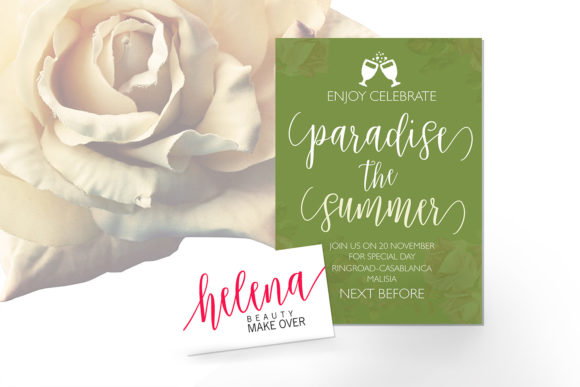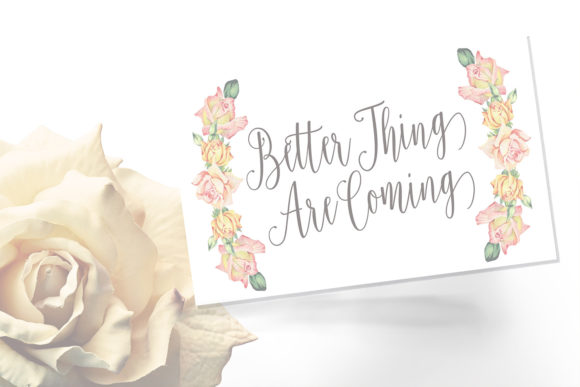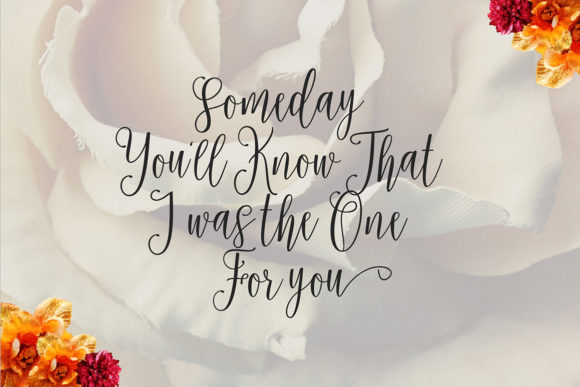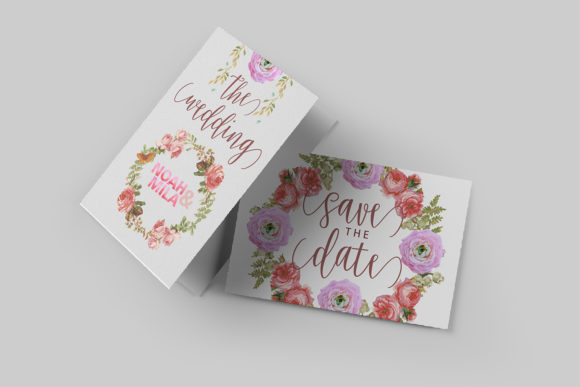
Introducing Charlotte Script Font: Elevate Your Designs with Elegance and Sophistication
In the world of typography, a new star has emerged: Charlotte Script Font. This stunning script font is making waves with its hand-lettered characters and exquisite blend of classic and modern typography. Whether you’re a designer, crafter, or DIY enthusiast, Charlotte is poised to become your go-to font for a wide range of creative projects.
What Makes Charlotte Script Font So Special?
Charlotte Script Font is more than just a pretty face. Its unique combination of classic and modern elements makes it incredibly versatile, suitable for a variety of applications. Here are just a few ways you can use Charlotte to elevate your designs:
- Logos and Branding: Create a lasting impression with a custom logo that exudes elegance and sophistication.
- Wedding Invitations: Make your special day even more memorable with beautifully designed invitations that set the tone for your wedding celebration.
- Signage and Posters: Grab attention and convey your message in style with eye-catching signage and posters.
- T-Shirts and Apparel: Add a touch of personality to your clothing and accessories with custom designs that showcase your unique style.
- Letterheads and Stationery: Elevate your business correspondence with professional-looking letterheads and stationery.
- Access a wide range of glyphs: From elegant swashes to intricate flourishes, Charlotte’s PUA encoding makes it easy to add a touch of sophistication to your designs.
- Customize your text: With a vast array of glyphs and swashes at your disposal, you can tailor your text to suit your specific design needs.
Why Designers and Crafters Love Charlotte Script Font
So, why are designers and crafters raving about Charlotte Script Font? Here are just a few reasons:
- Unique and Versatile: Charlotte’s blend of classic and modern typography makes it incredibly versatile, suitable for a wide range of design applications.
- Elegant and Sophisticated: With its hand-lettered characters and beautiful swashes, Charlotte adds a touch of elegance and sophistication to any design.
Get Creative with Charlotte Script Font
Ready to take your designs to the next level with Charlotte Script Font? Here are a few tips to get you started:
- Experiment with different glyphs and swashes: Don’t be afraid to try out different combinations to find the perfect look for your design.
- Play with font sizes and colors: Charlotte Script Font looks stunning in a range of sizes and colors, so don’t be afraid to get creative.
- Pair with other fonts: Try pairing Charlotte with other fonts to create a unique and eye-catching design.